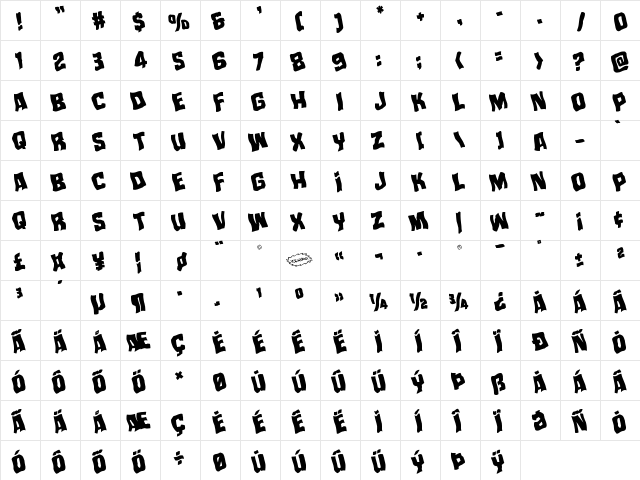
Mister Twisted Warped Rotated Regular
Design Context for Mister Twisted Warped Rotated Typeface
Mister Twisted Warped Rotated is a composed and adaptable typeface that performs quietly and consistently across a wide range of design contexts.